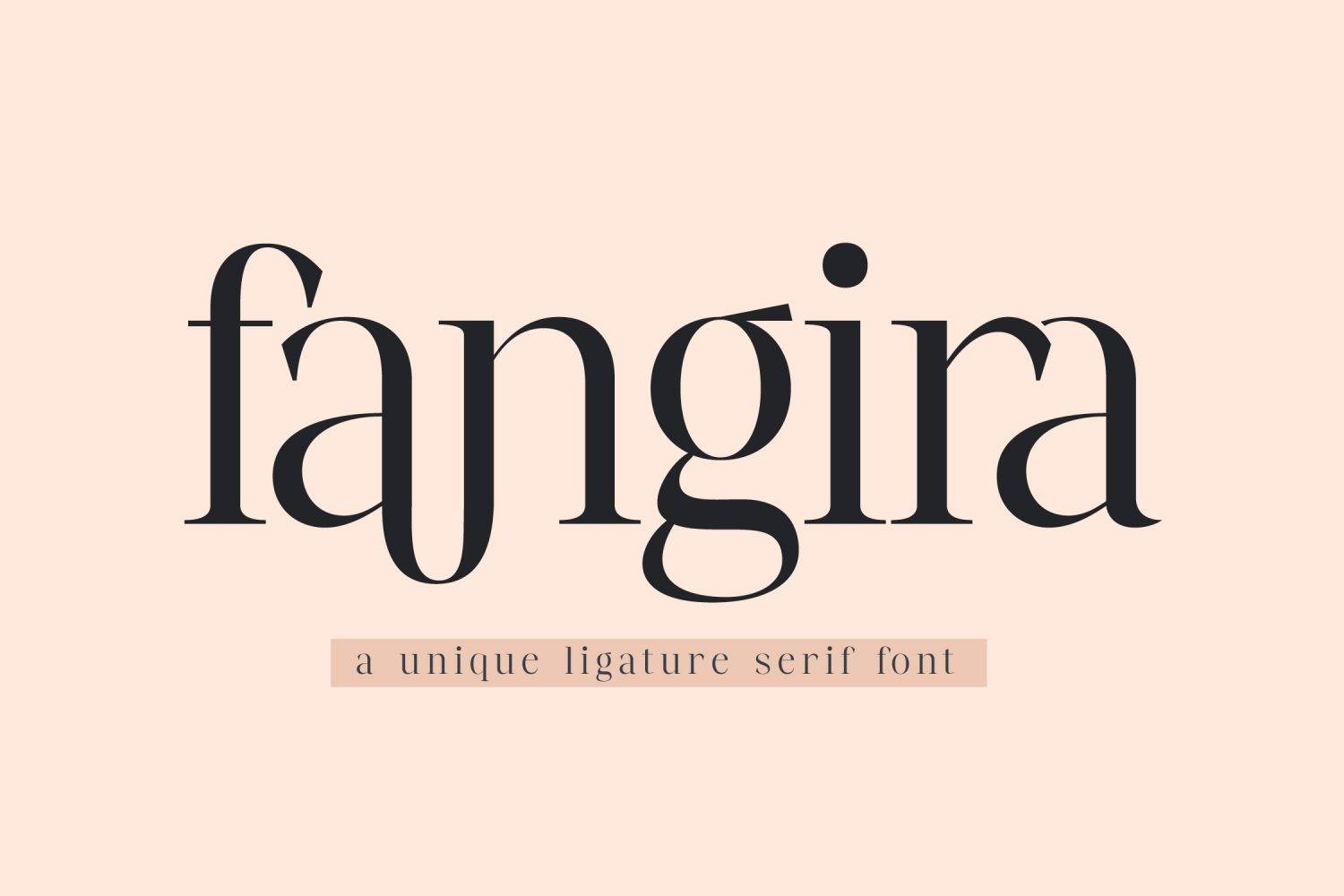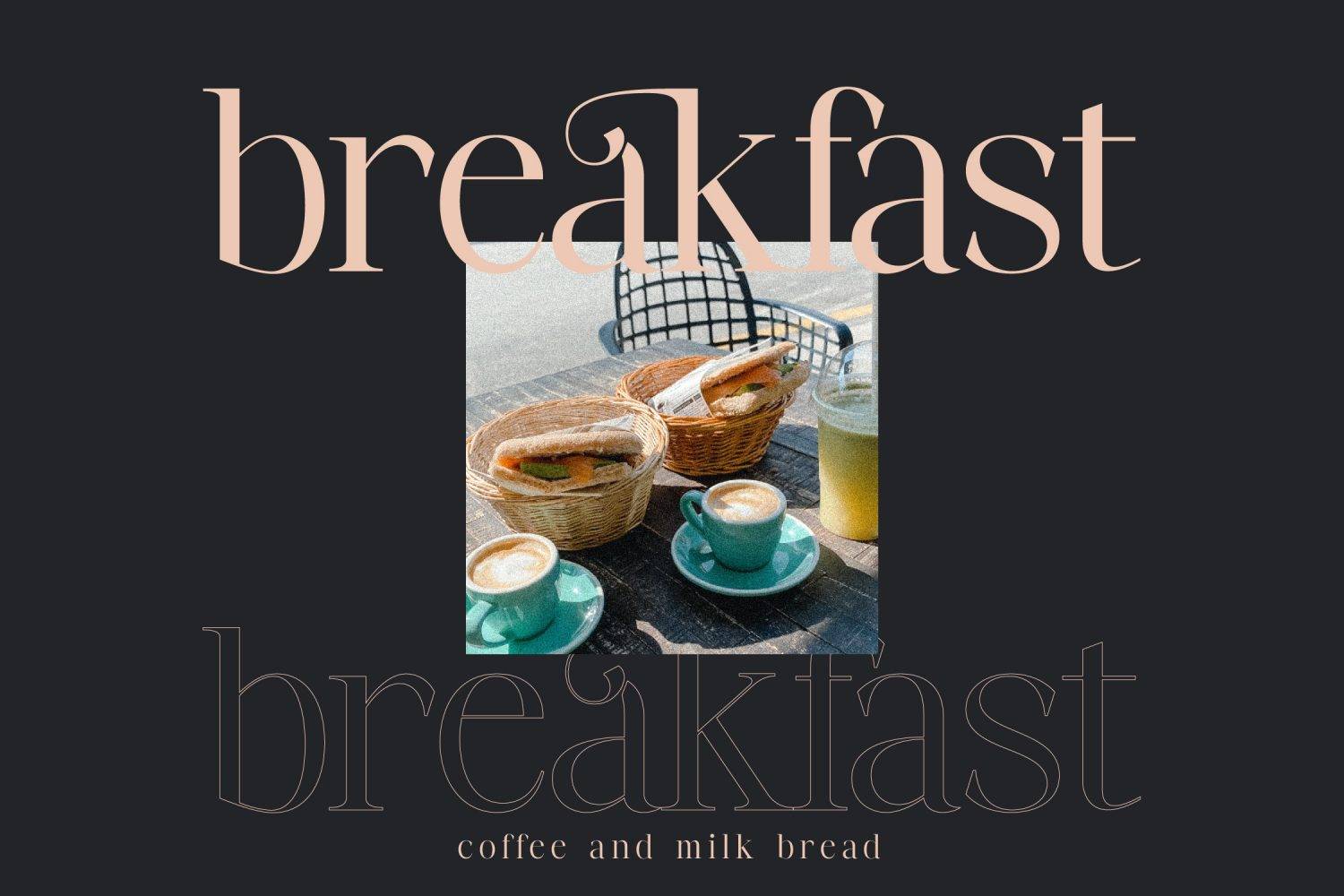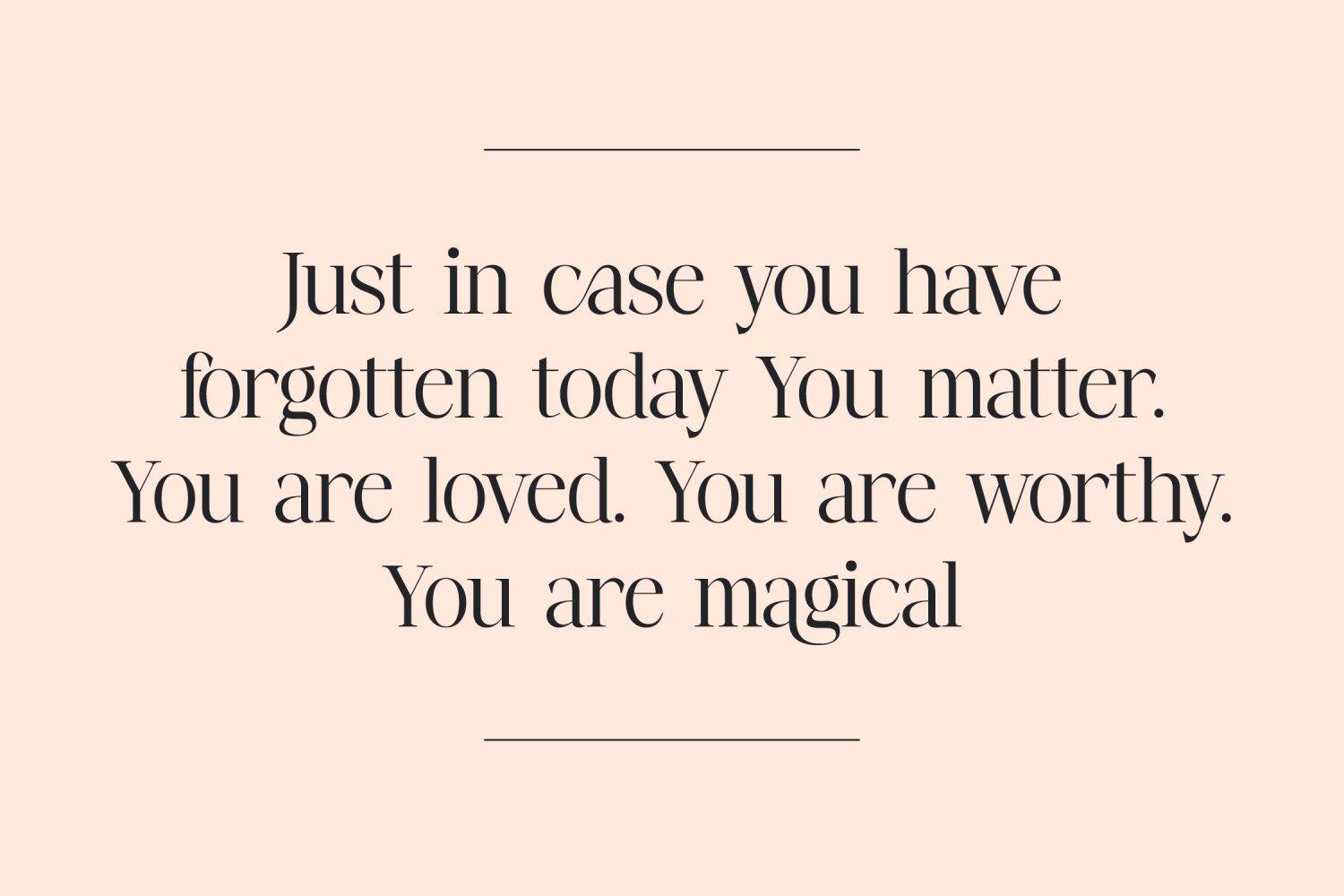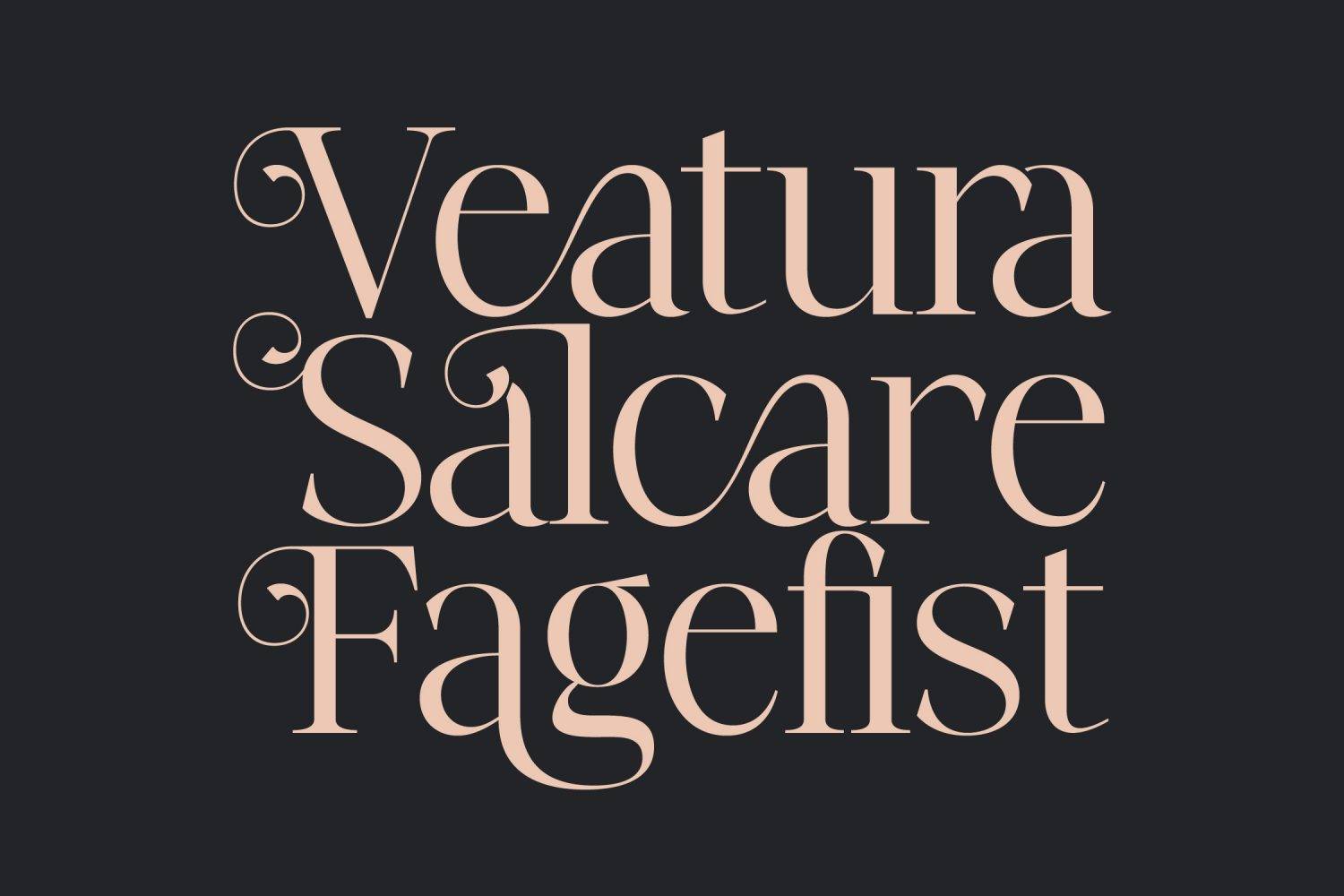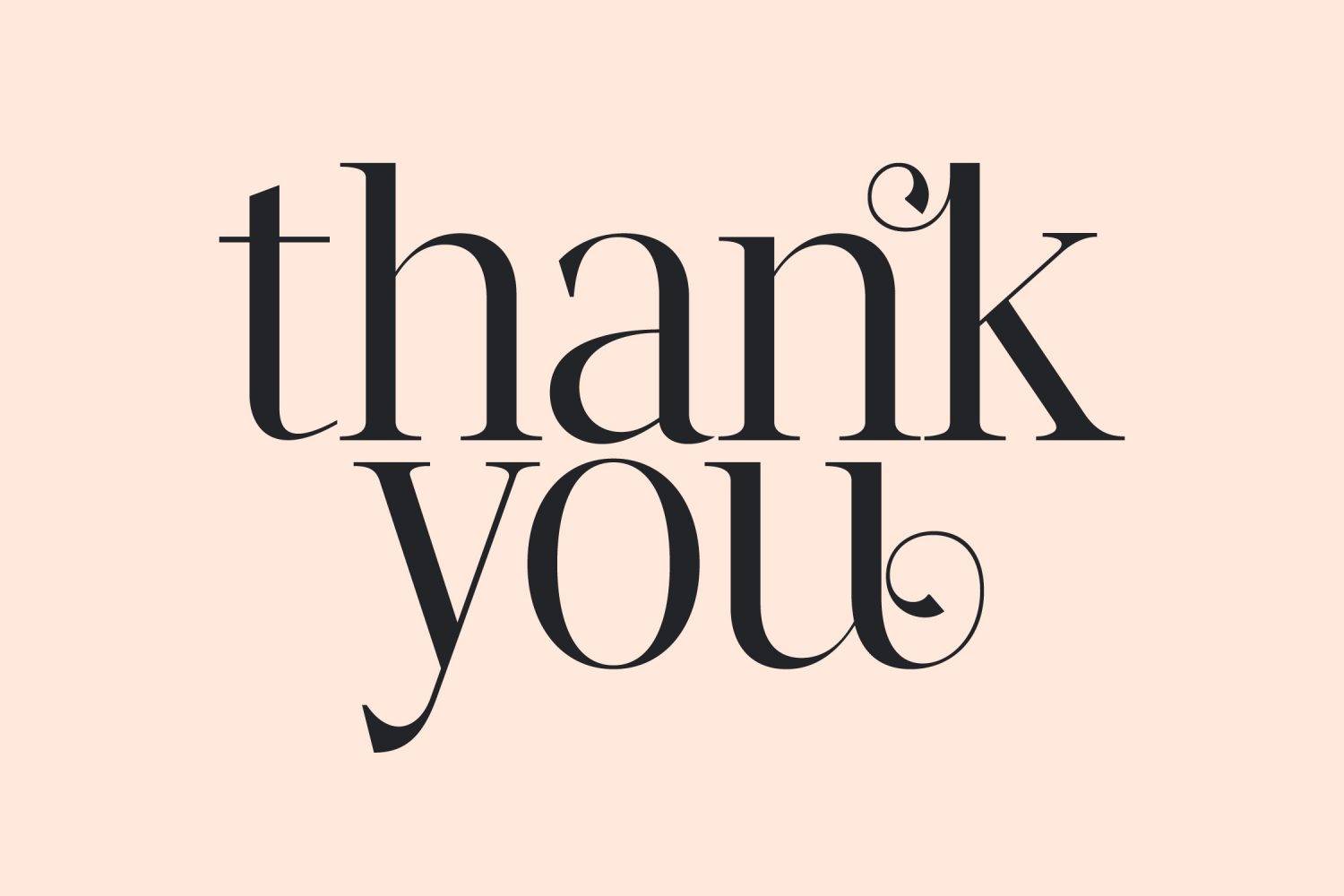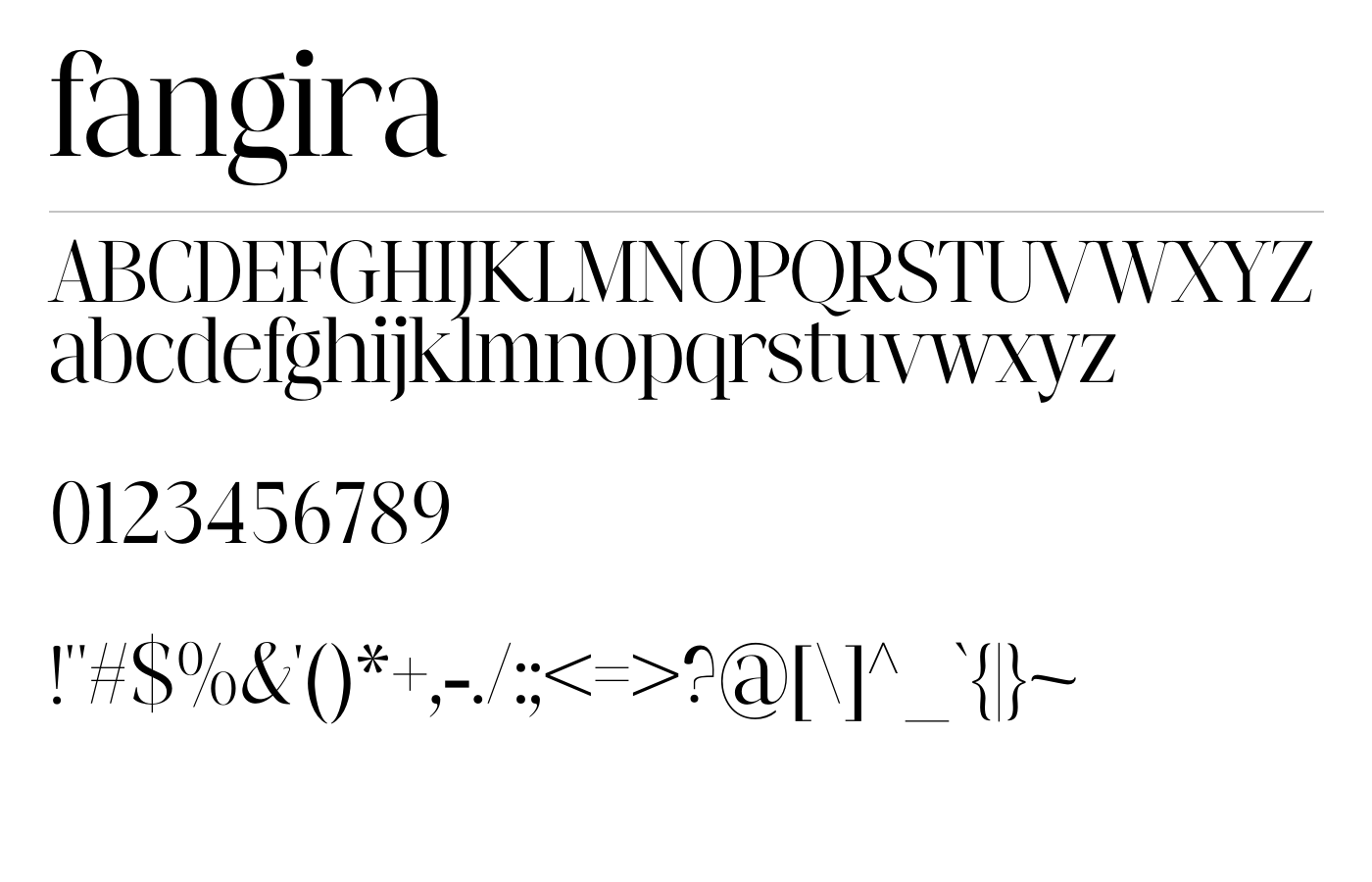
Fangira is a refined serif font with a modern Didone style, characterized by high contrast between thick and thin strokes and elegant, thin serifs. Its tall x-height and delicate letterforms create a sophisticated, luxurious feel, making it ideal for fashion branding, editorial headlines, and upscale packaging. This font works beautifully where elegance and a contemporary yet classic touch are desired.
Fangira Font
About Fangira Font